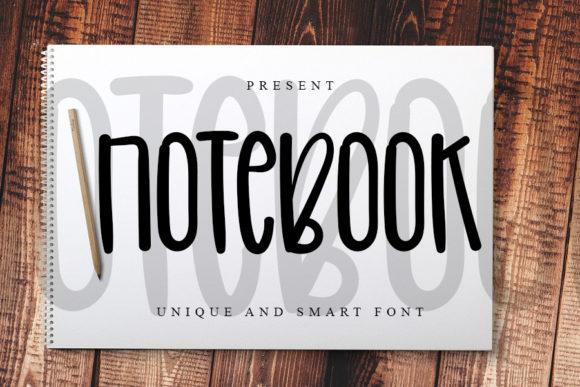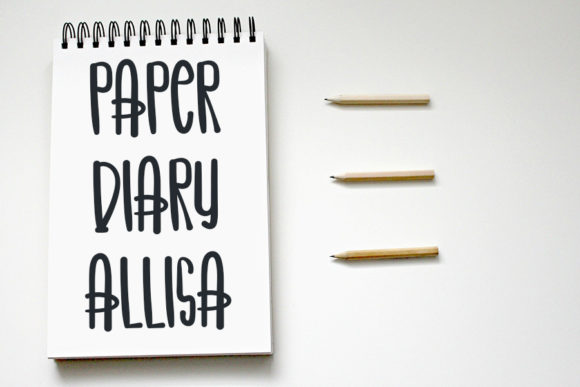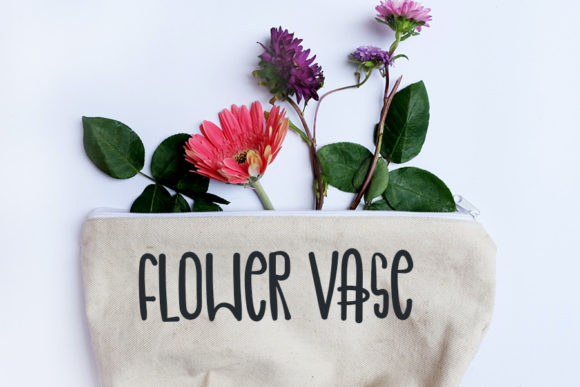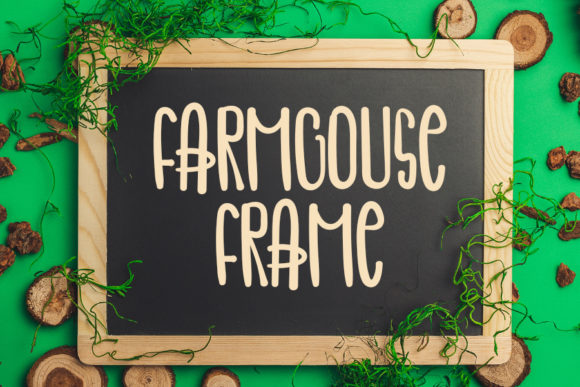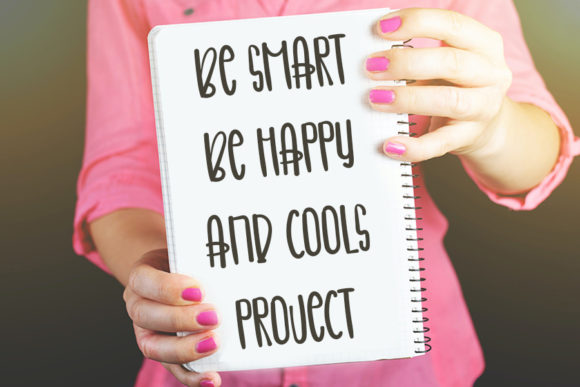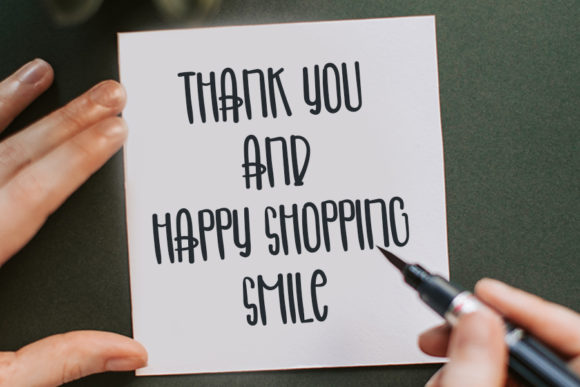
Notebook Font
About Notebook Font
Notebook is a unique, simple and friendly handwritten font. It can easily be matched to an incredibly large set of projects, so add it to your creative ideas and notice how it makes them stand out!